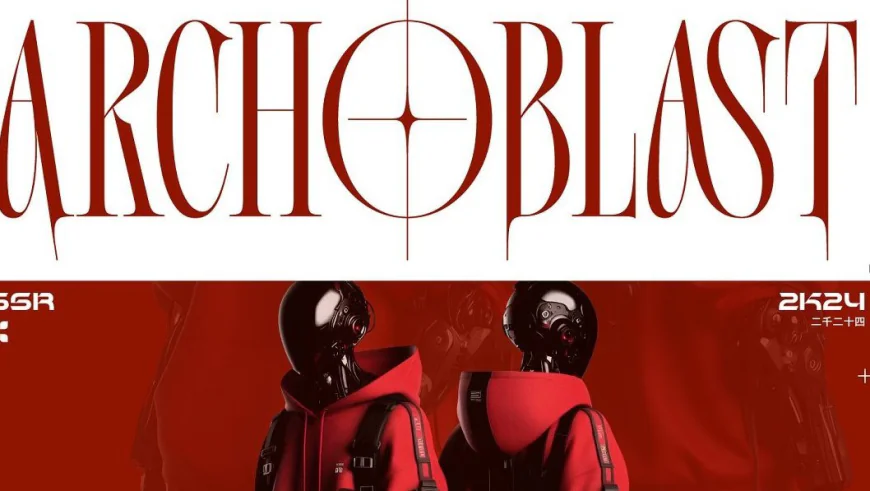
Achoblast is a stylish display serif, an experimental font that combines futuristic elements with elegant details, infused with a subtle Japanese aesthetic.